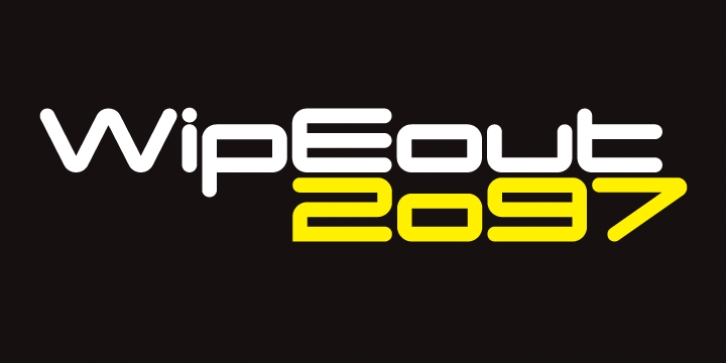
Otomo downloadDesigner: Jonathan Hill
Publisher: The Northern Block Ltd
A super wide san serif typeface inspired by event graphics for Sheffield music venues in the 1990s. Most influential work by The Designers Republic (TDR).
Details include four unique styles, extended European character set, manually edited kerning and Euro symbol.